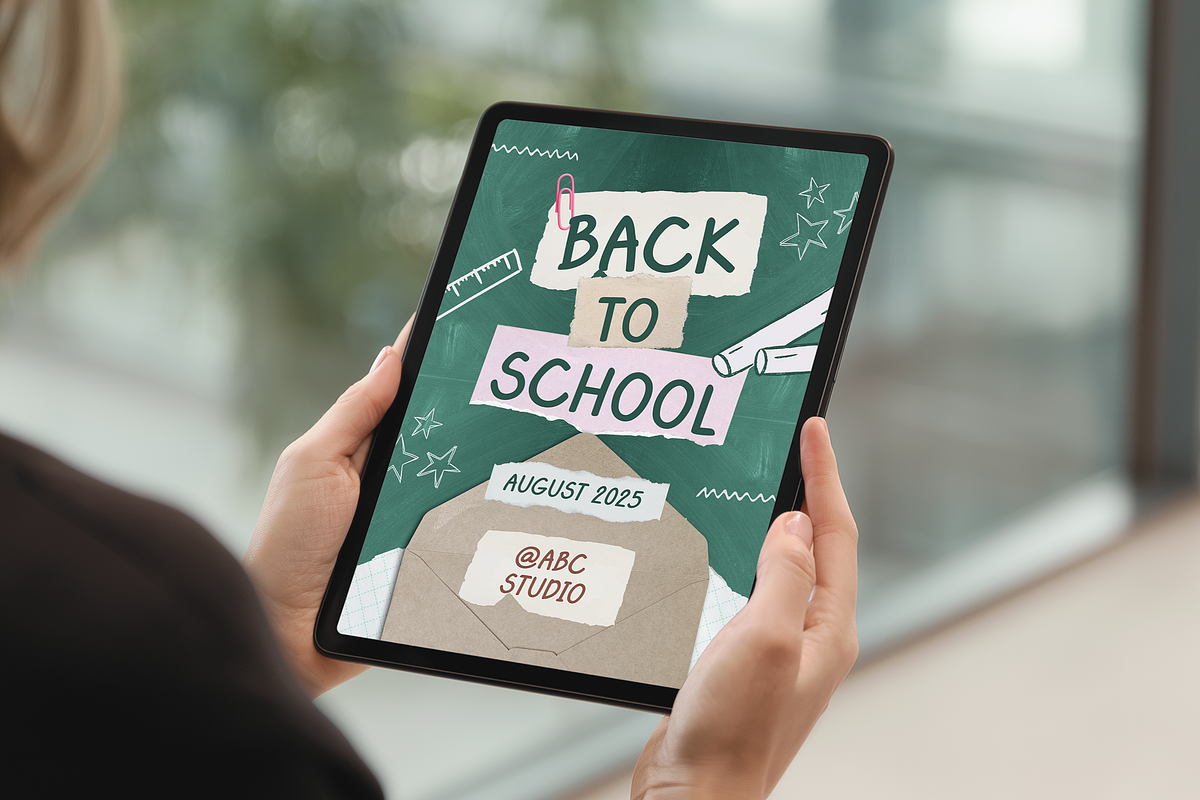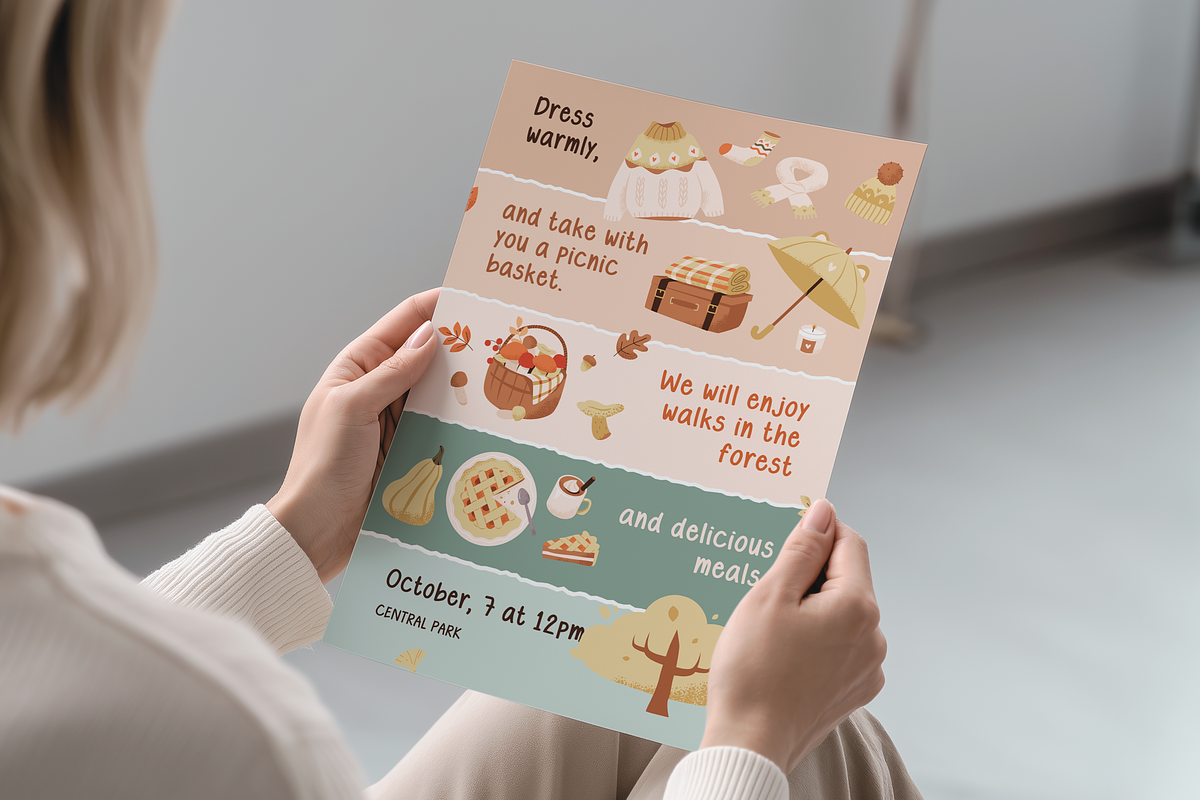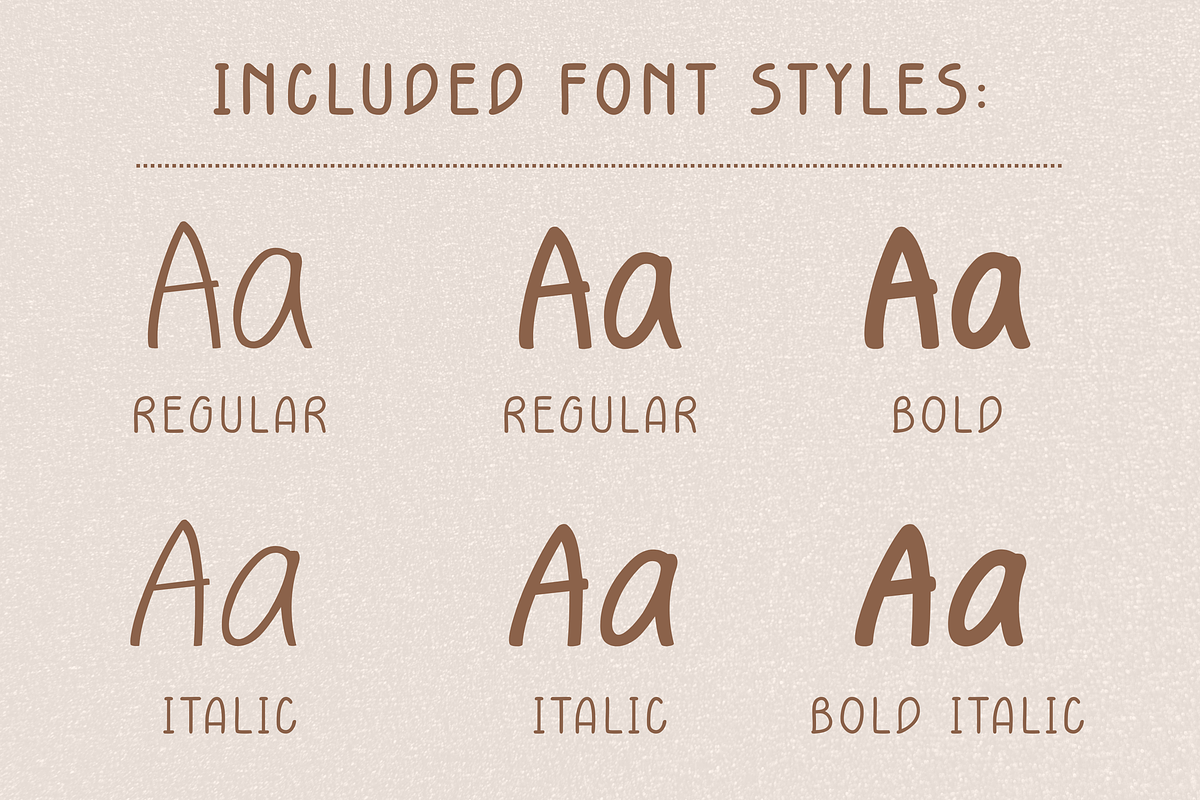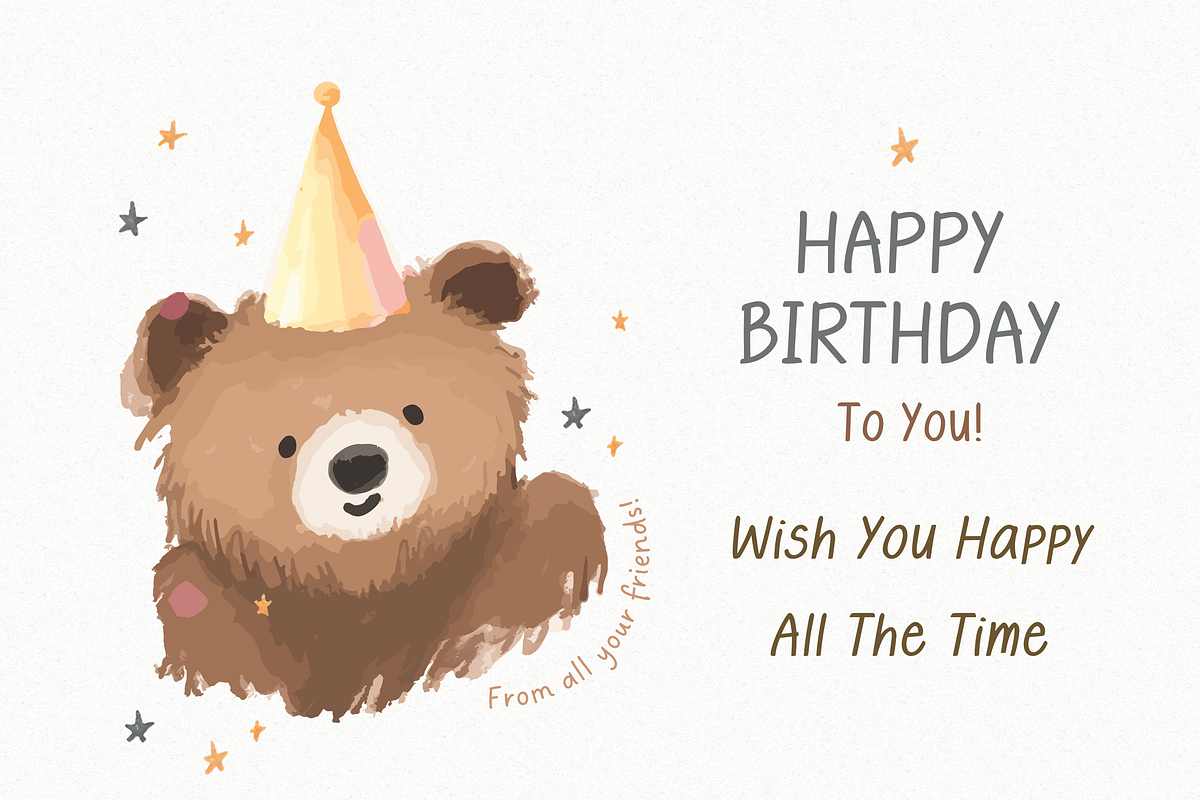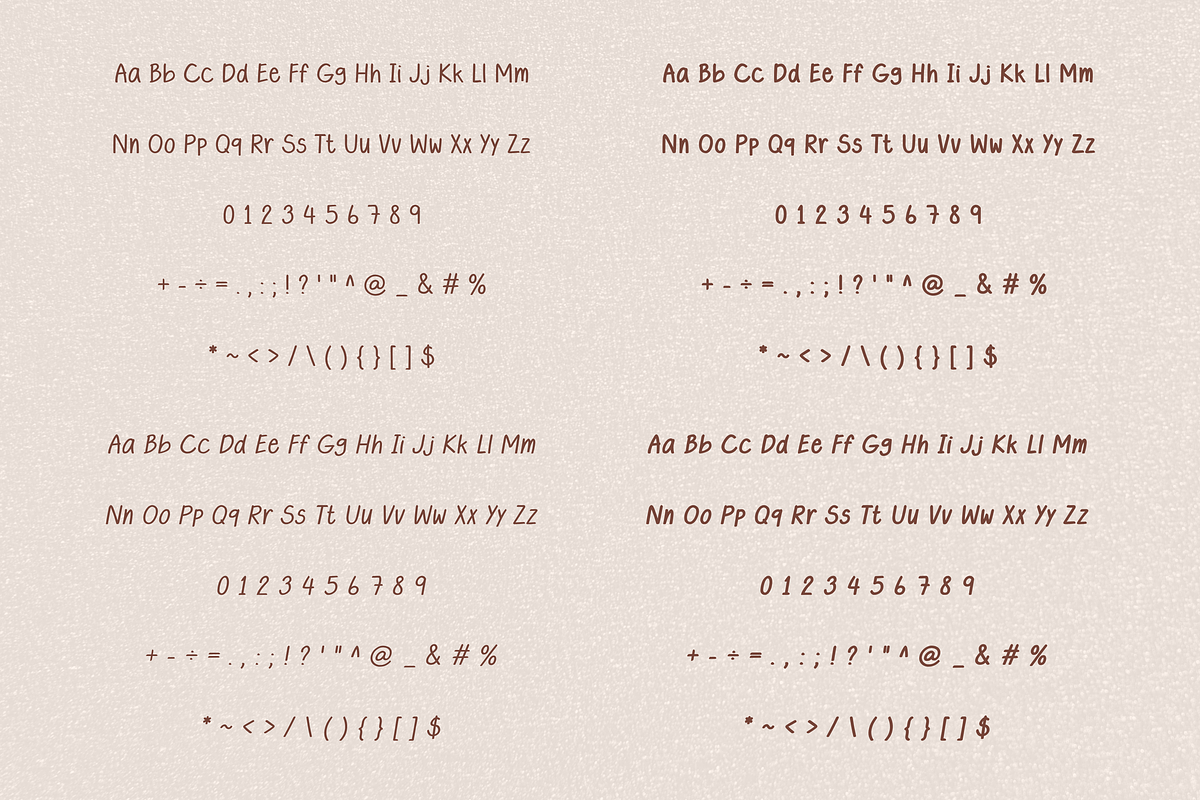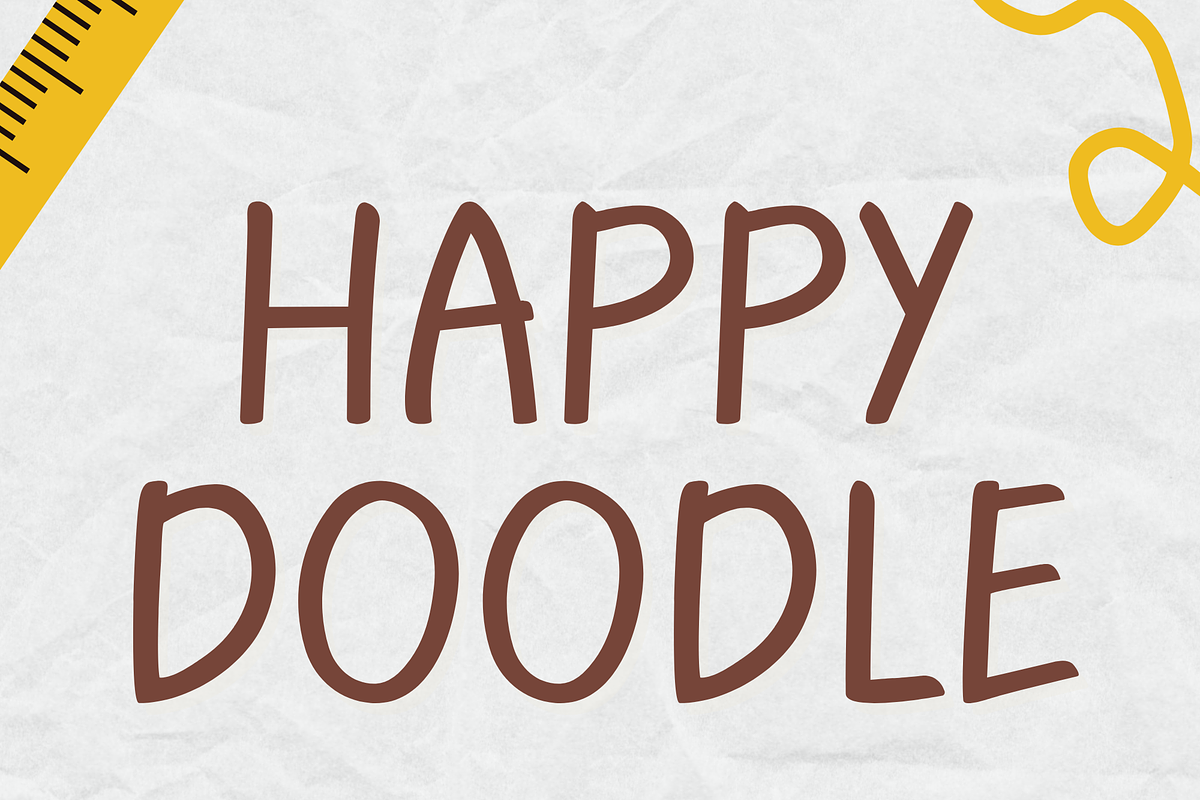
Handwritten Font – Happy Doodle
Happy Doodle – A Playful Handwritten Font Bundle (6 Styles)
Bring your designs to life with Happy Doodle – a fun and friendly handwritten font perfect for kids projects, invitations, educational materials, digital planners, and creative crafts!